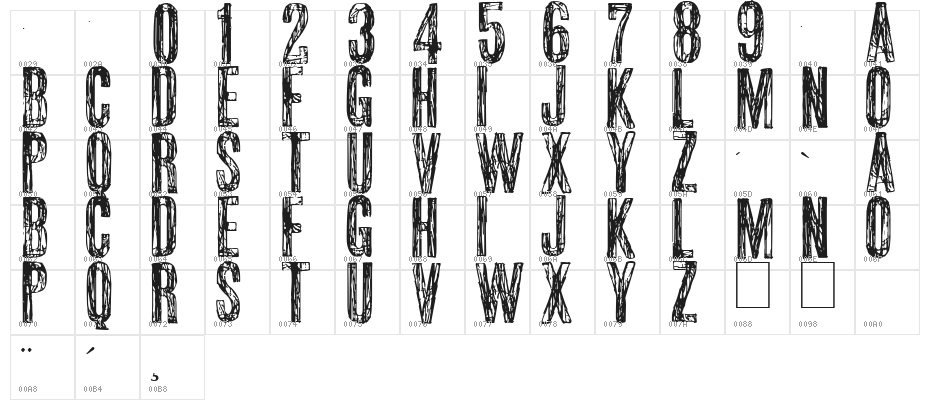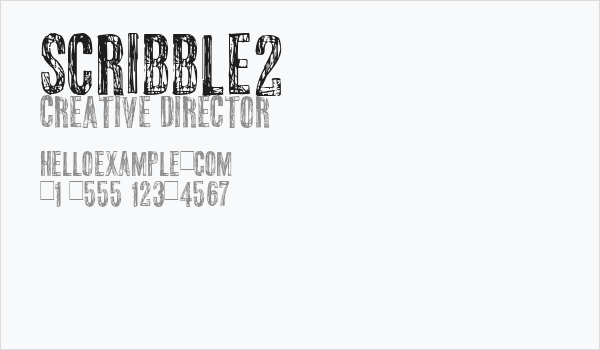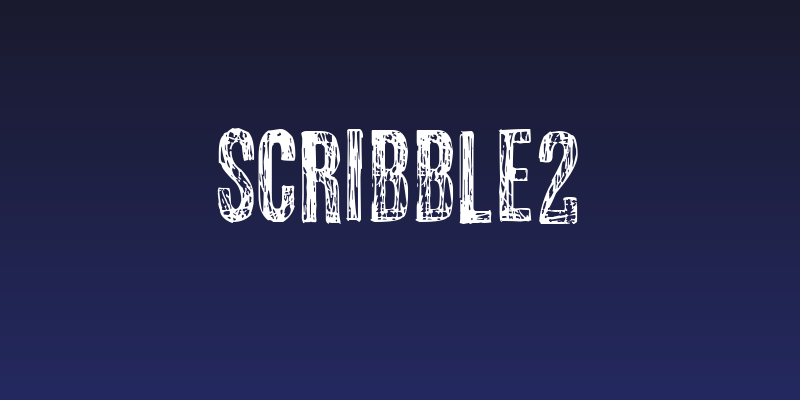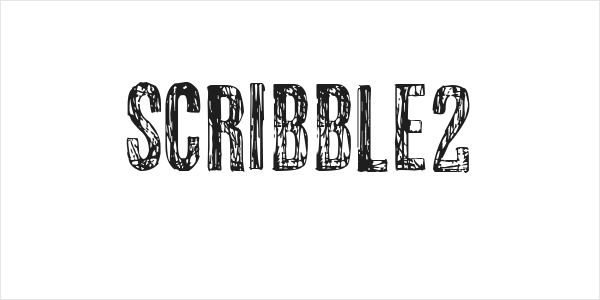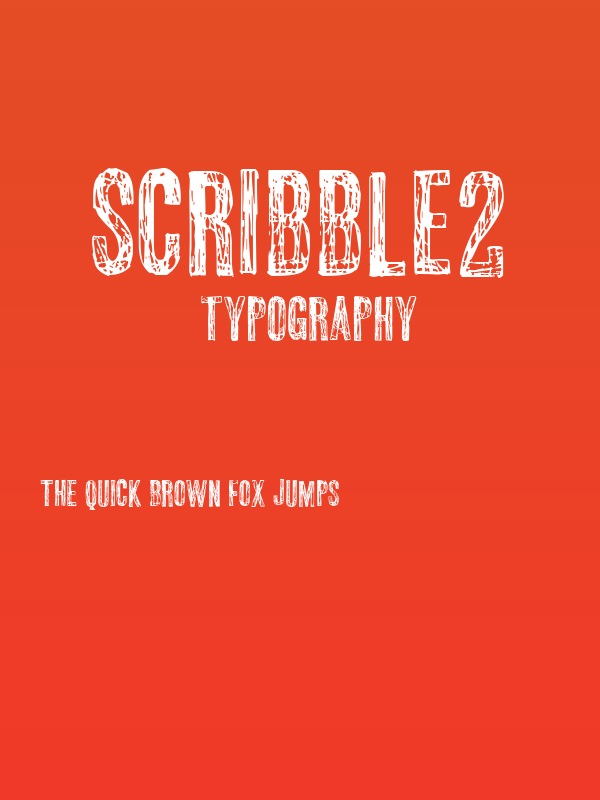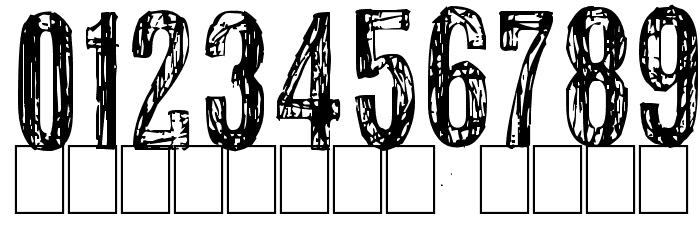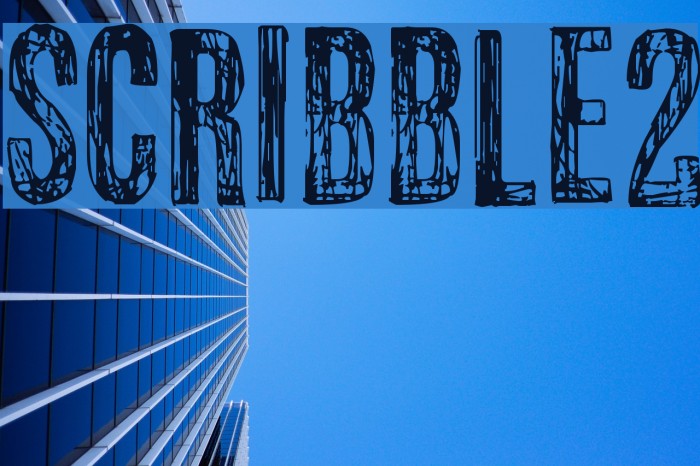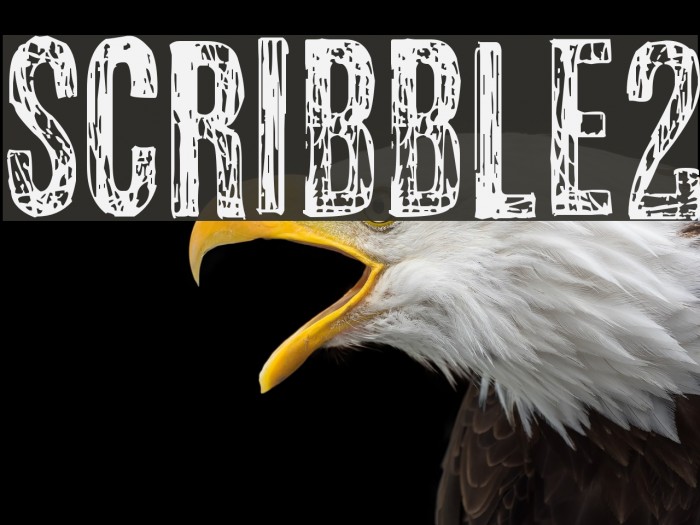
scribble2 Font
scribble2 Description
This font features a bold and distressed style, characterized by its rough, hand-drawn appearance. Each character is filled with irregular, scribbled lines that give it a textured and dynamic look. The uppercase letters are tall and commanding, while the numbers maintain the same rugged aesthetic. The font's unique style makes it stand out, offering a raw and edgy feel that is perfect for creative projects. Its uneven strokes and sketch-like quality add a sense of movement and energy, making it suitable for designs that aim to capture attention and convey a sense of artistic flair.
| Proposed Projects | Ideal for posters, album covers, graffiti art, and edgy branding projects. |